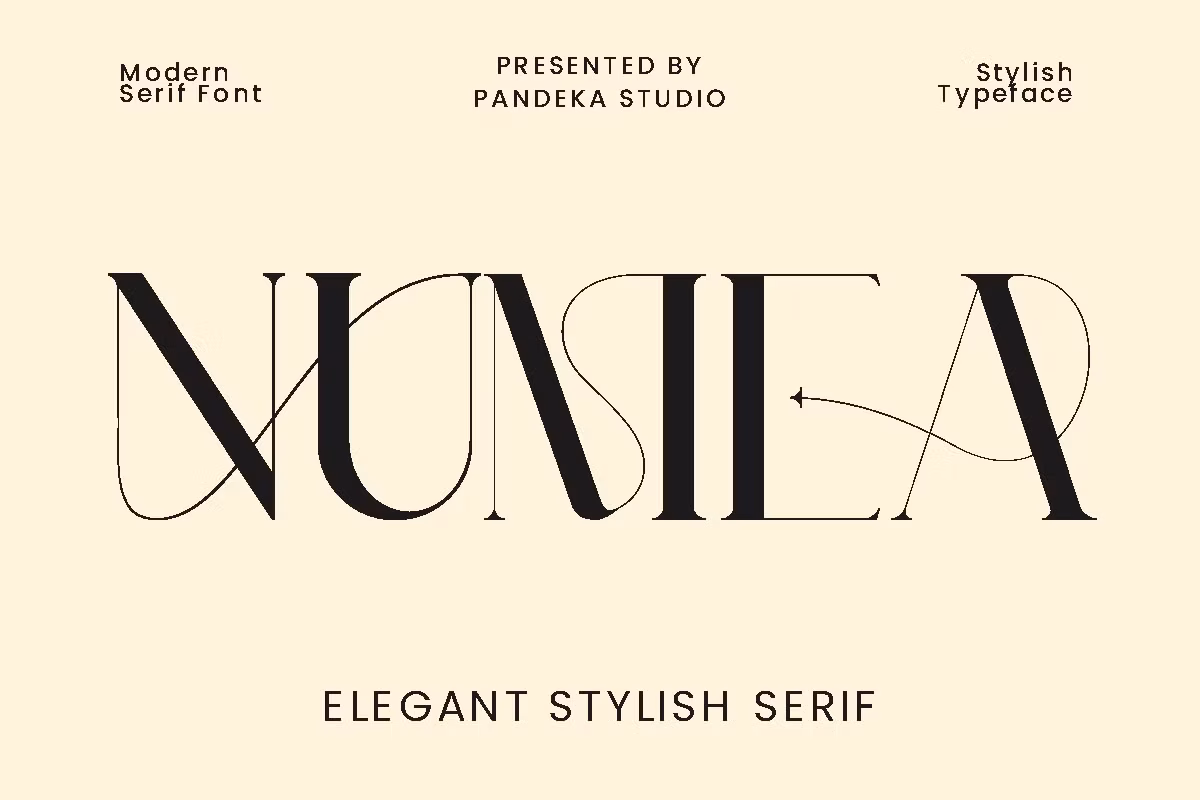
Numea - All Caps Elegant Font Free Download is a sleek, modern, and elegant all-caps typeface designed to make a bold statement. With its clean lines, high contrast, and sophisticated style, Numea is perfect for logos, branding, headlines, editorial design, invitations, and any project that requires a stylish, high-end touch.
The all-caps design adds a strong, commanding presence, while the refined proportions and elegant detailing make it perfect for luxury branding, fashion, and creative campaigns.